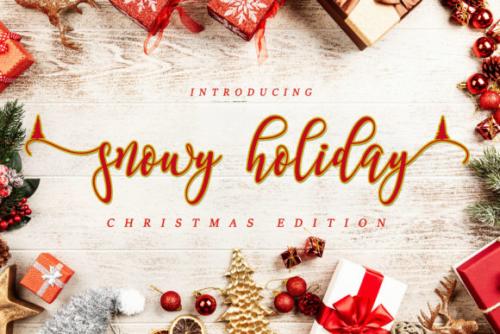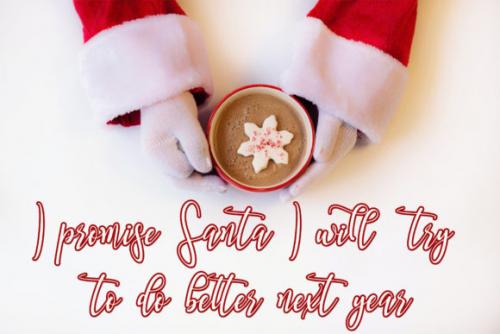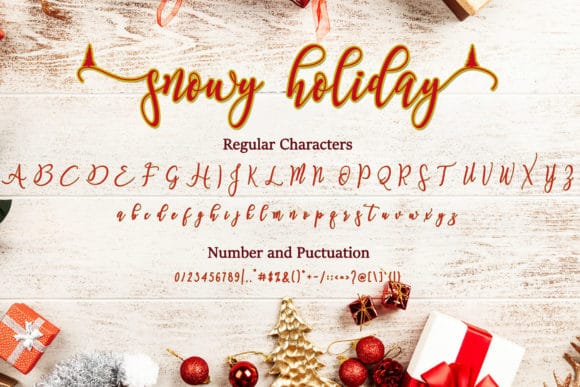
Snowy Holiday Calligraphy Font
Snowy Holiday is a sweet handwritten font, with a beautiful Christmas accent on the beginning and ending swashes. It will look lovely on each of your letters and thank you cards.